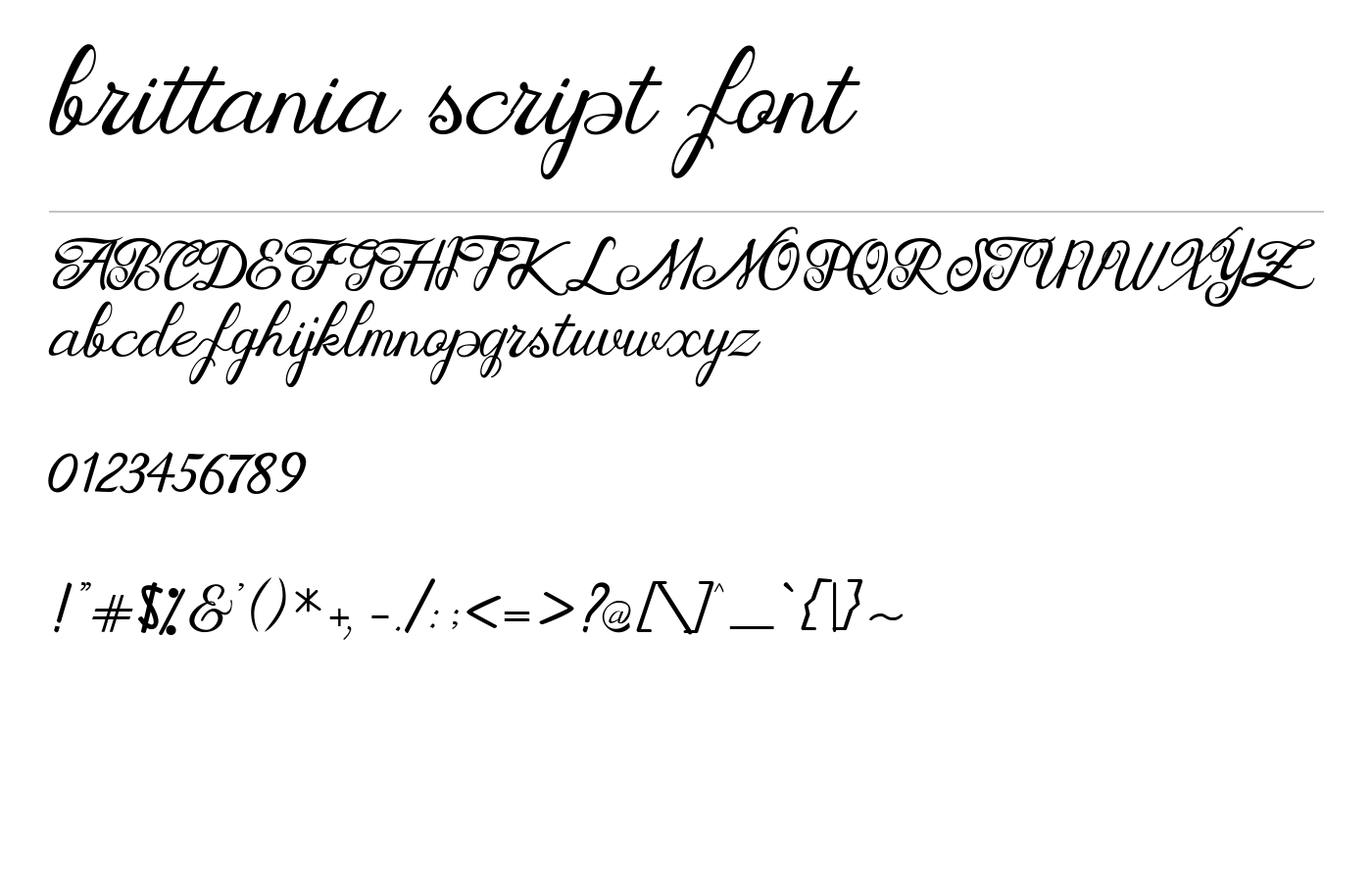
Brittania Script is an elegant and flowing script font characterized by its delicate, smooth strokes and graceful letterforms. With its slender weight and refined curves, it evokes a sense of sophistication and charm, making it ideal for invitations, branding, and any design that calls for a stylish, handwritten feel. This font works particularly well in decorative titles and logos where a touch of classic elegance is desired.
brittania script font